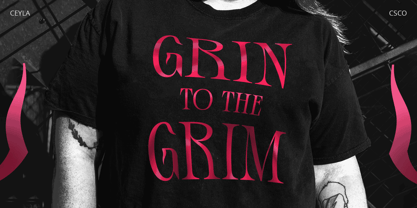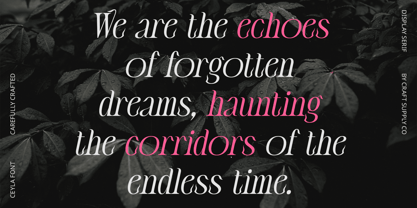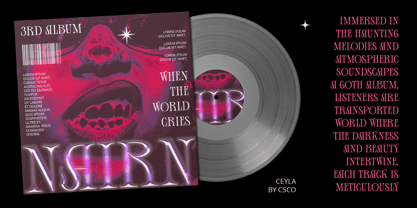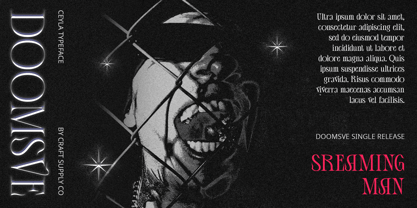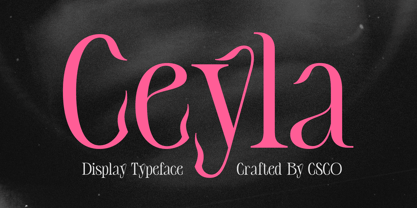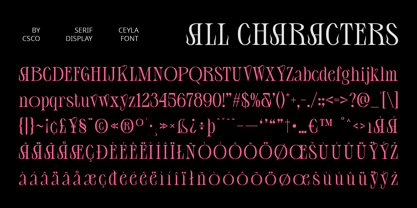
Ceyla
by Craft Supply Co
The Ceyla Font Family was designed by Trio Nazzar Saputra, Wahyu Hadi Yuana and published by Craft Supply Co. Ceyla contains 2 styles and family package options. More about this family
Ceyla – Art Nouveau Font: Where Elegance Meets Artistry Modern Font with Art Nouveau Flair Ceyla is a modern font that combines serif and display styles with an Art Nouveau flair, exuding elegance in every design. Its intricate details and graceful curves pay homage to the Art Nouveau movement, offering a unique and stylish option for designers looking to add a touch of sophistication to their projects. Versatile and Stylish With its versatile design, Ceyla Font is suitable for a variety of uses, including branding, editorial design, and signage. Its Art Nouveau flair adds a timeless and elegant touch, ensuring that your designs have a classic yet contemporary appeal. Enhanced Elegance Ceyla Font prioritizes elegance, ensuring that your designs are both refined and captivating. Whether used in print or digital media, this font adds a sense of luxury and artistry that elevates the overall aesthetic of your projects. Perfect for Elegant Design Projects Whether you’re creating a luxurious brand identity, designing a sophisticated magazine layout, or crafting an elegant invitation, Ceyla Font is the perfect choice for projects that require a modern and elegant look with an Art Nouveau twist. Its blend of serif and display styles ensures that your designs will always look refined and stylish.
Designers: Trio Nazzar Saputra, Wahyu Hadi Yuana
Foundry: Craft Supply Co